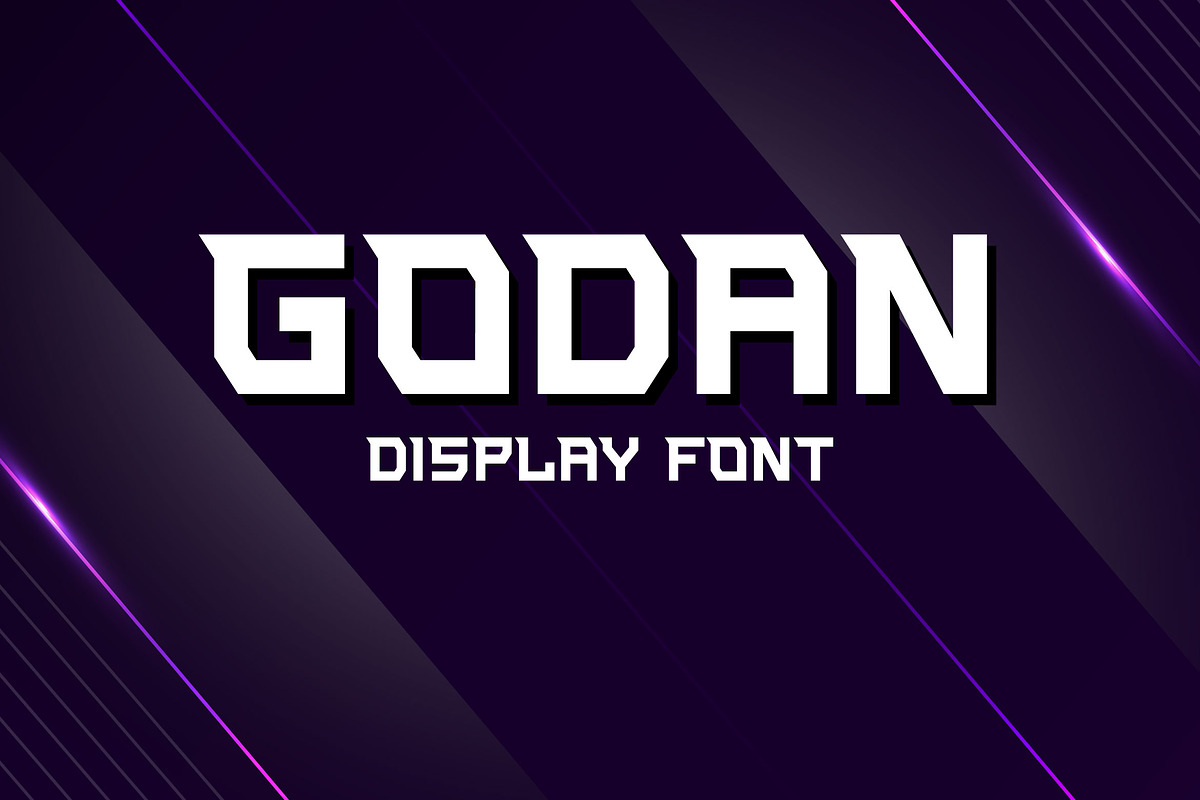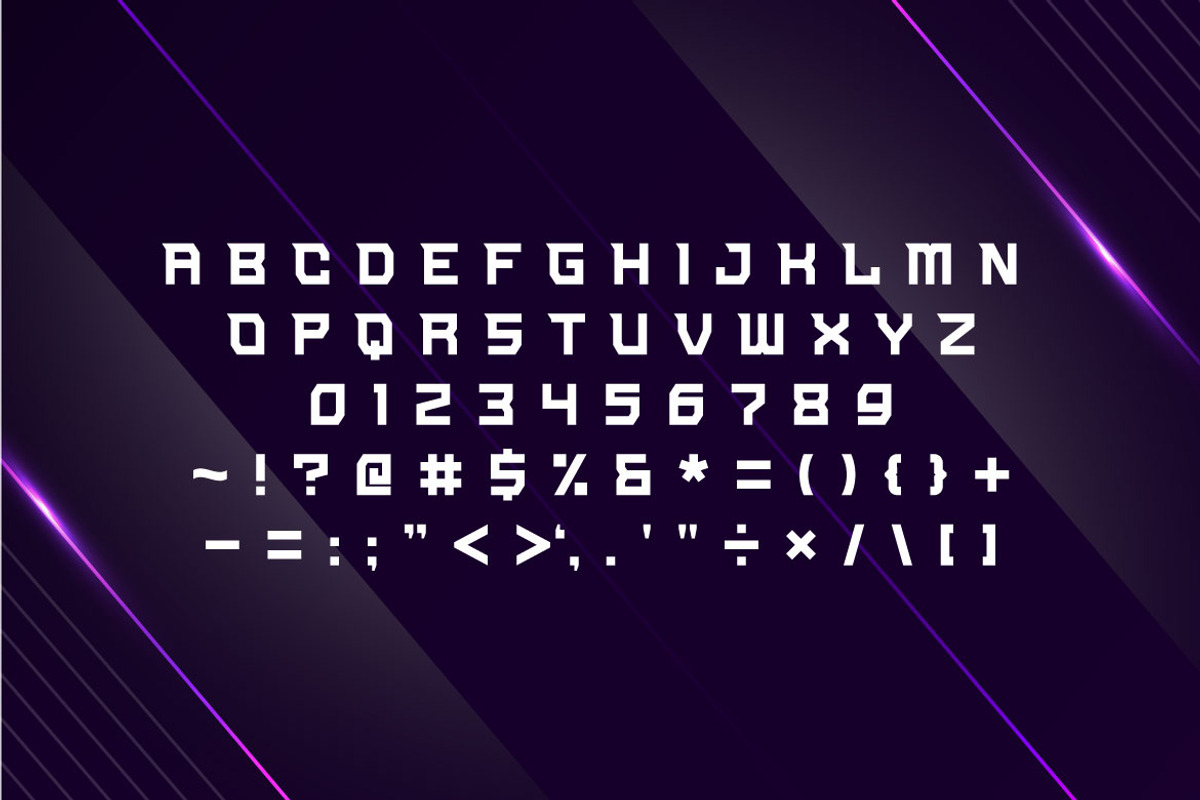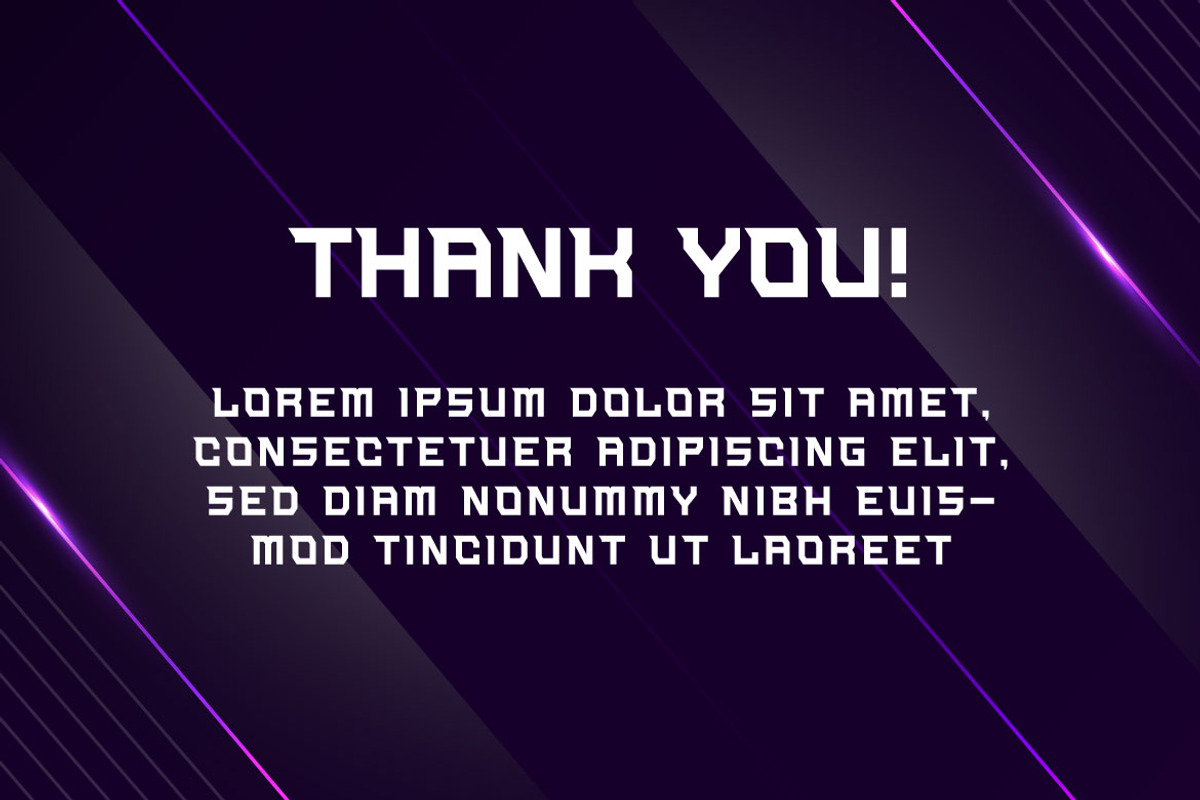
Godan - Futuristic Display Font
If you are looking for a bold and modern display font, meet GODAN
Godan is perfect for any works, such as sport and esport logo and content card, book title, headline of news, banner, flyer, stationery and many more. It also can be used in any size work.